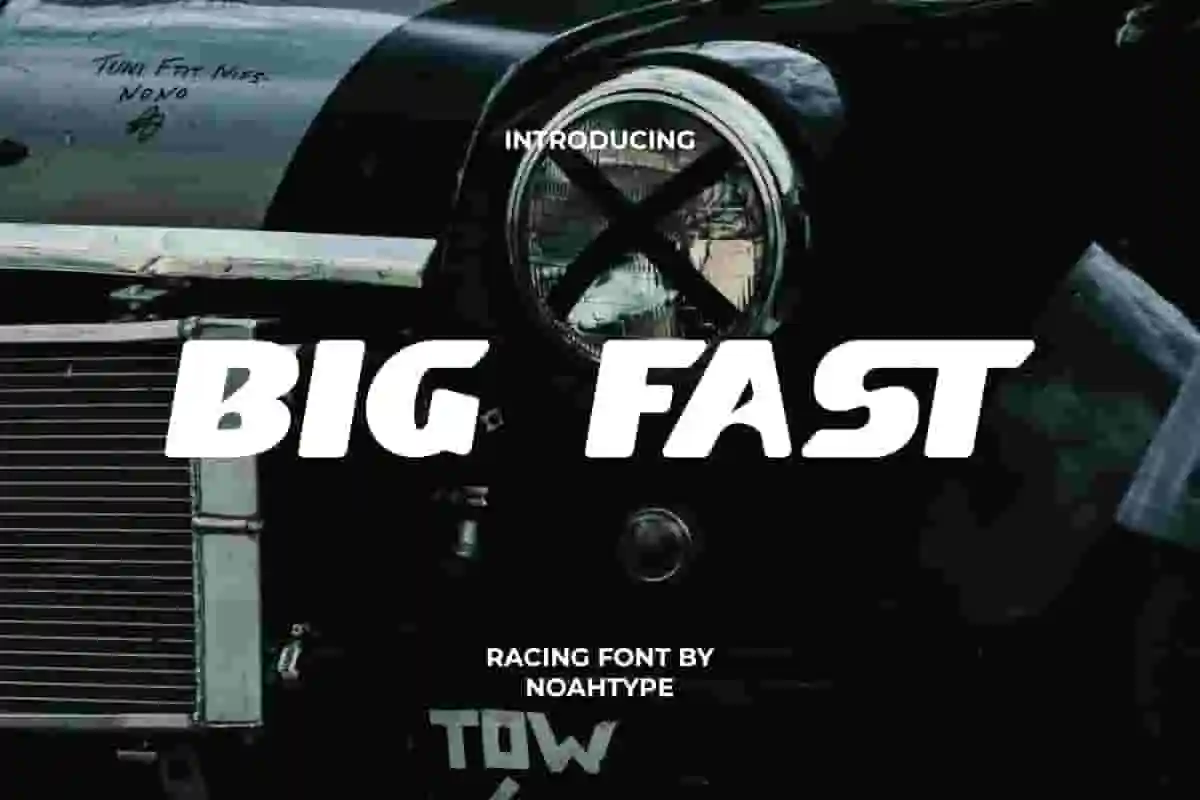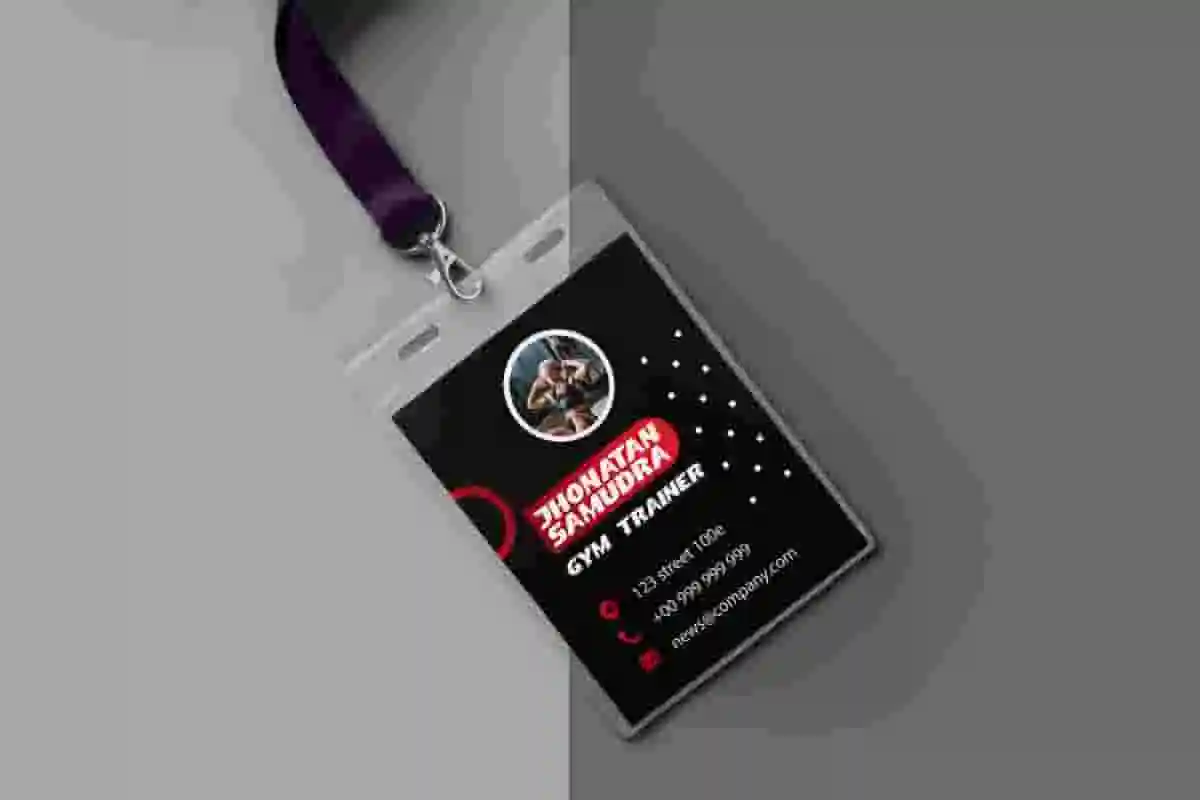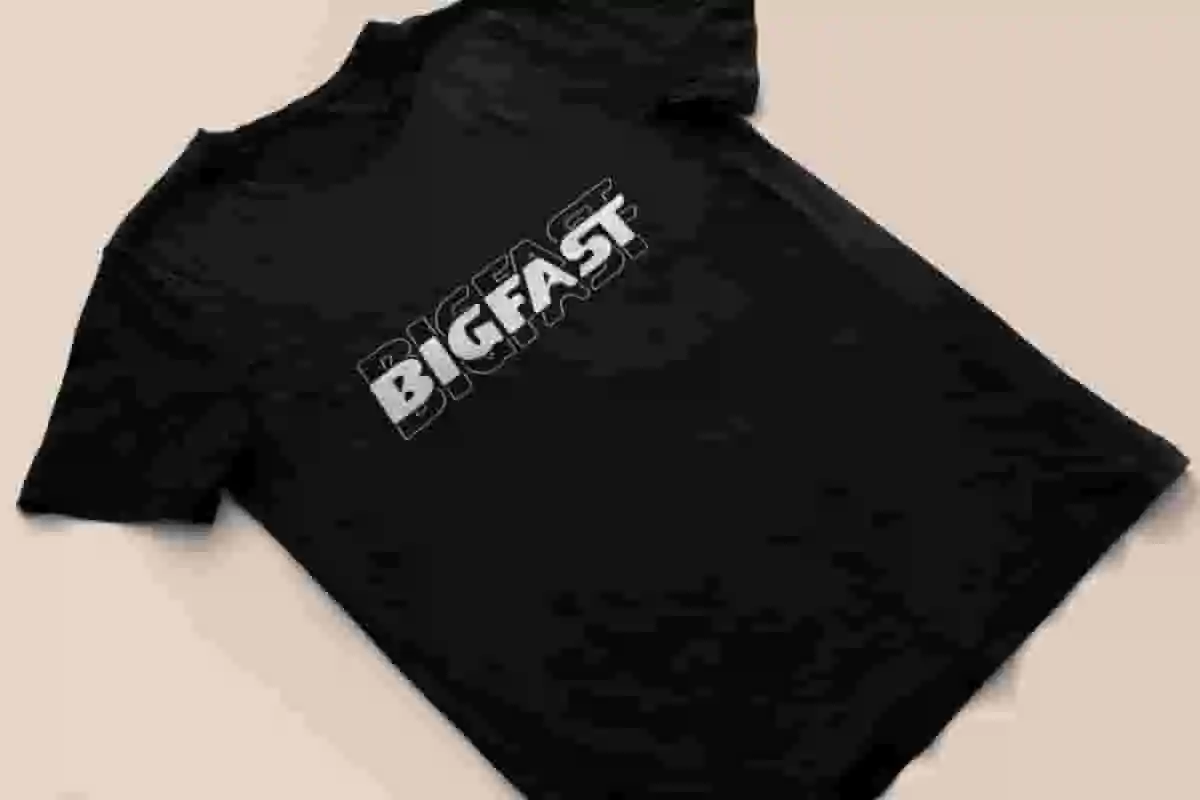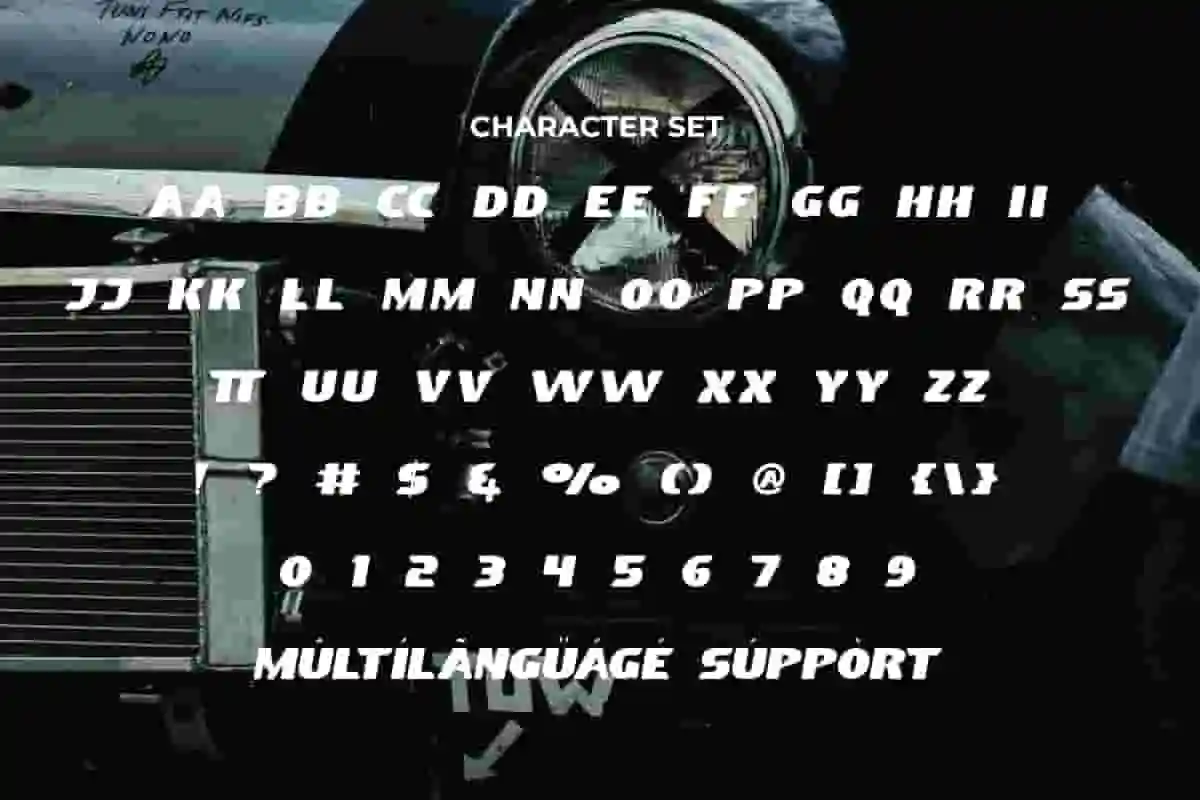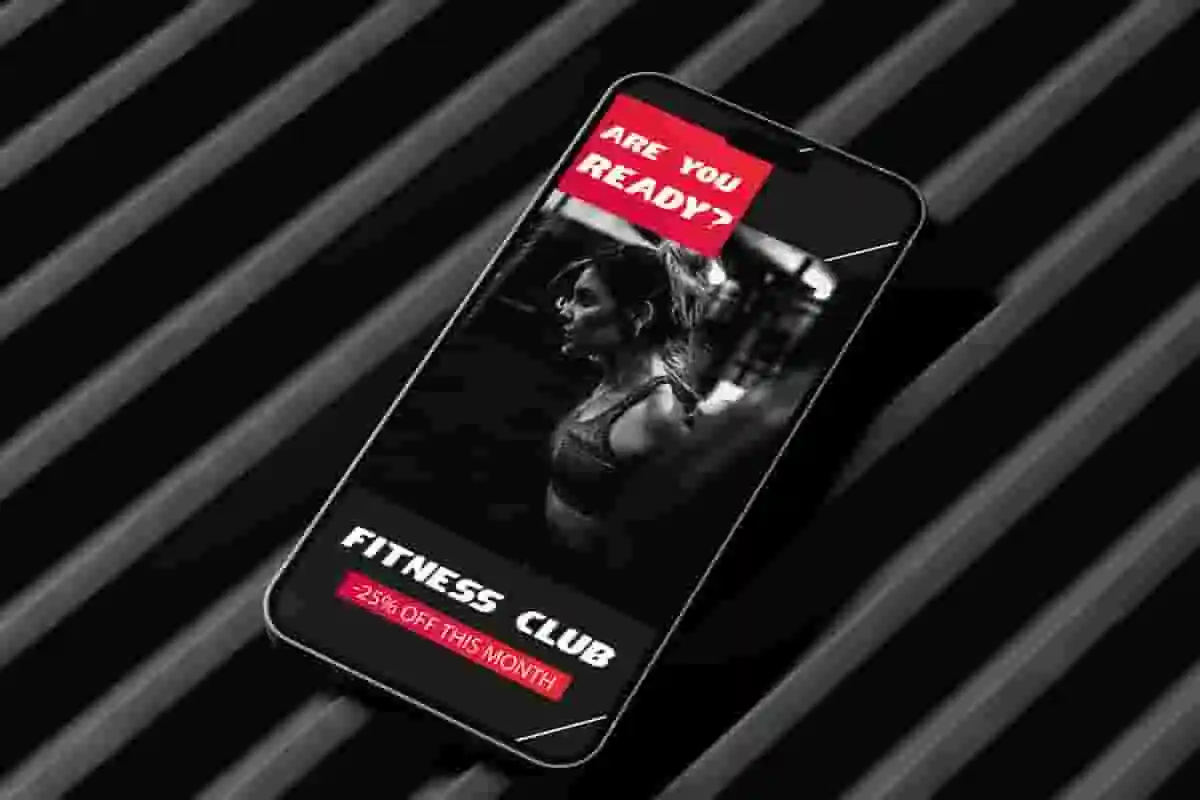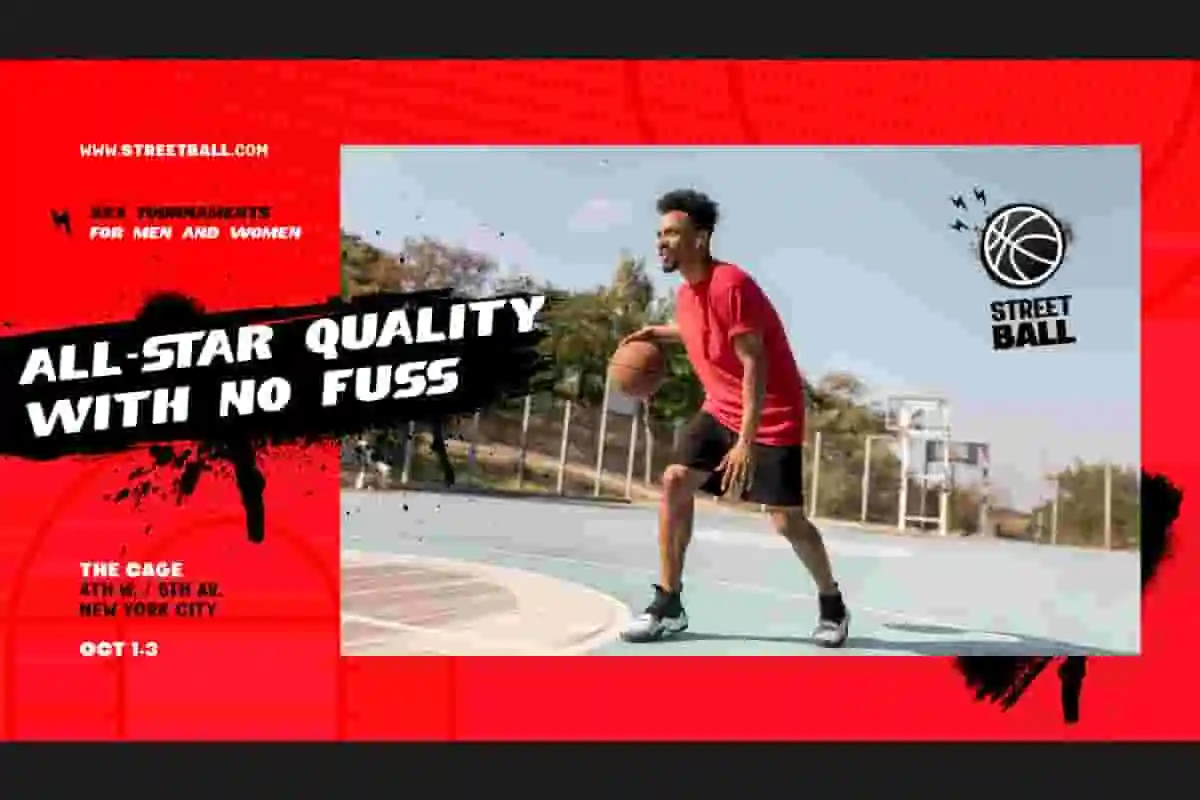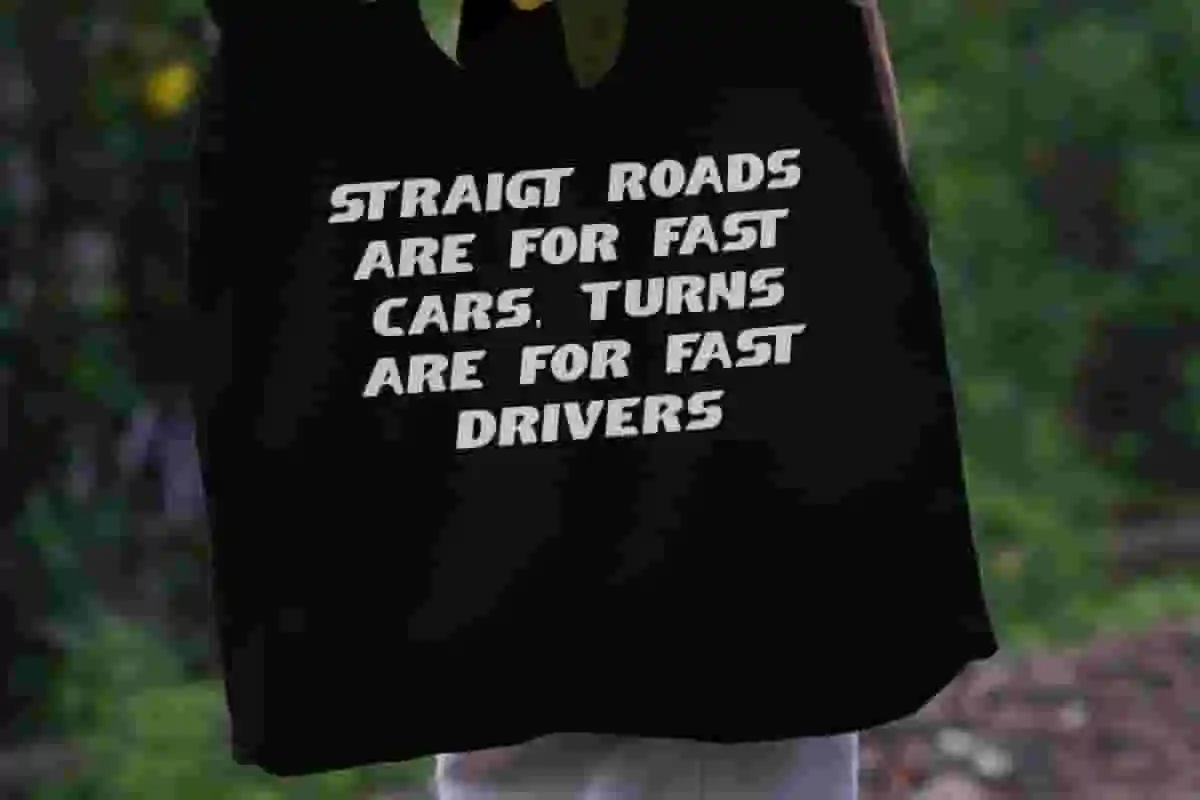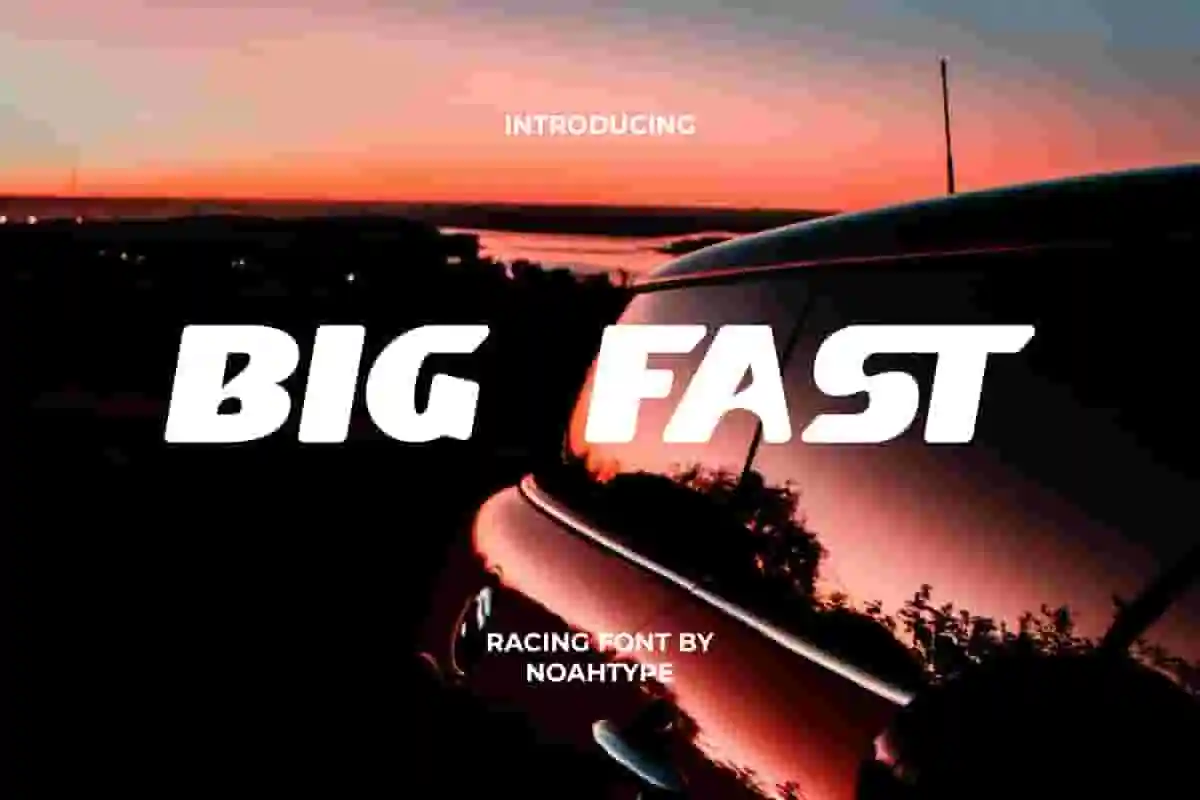
Big Fast Font is a fun, strong yet stylish racing sporty display font from NoahType. This font has a basic style so it can be used in a variety of designs and paired with other font types. It will be perfect for any projects, such as stationery, custom design, signage, invitation, label, brand image, cover, menu, poster, printing, product packaging, quotes, website, and many more!
Big Fast Font includes full set of ALL CAPS for Uppercase and Lowercase Basic Characters, Numerals, Punctuation, and Symbol. This modern font will make your design standout and also a perfect choice for many industries, such as fashion, automotive, sports, game, racing, movie, accessories, advertising, art, café, event or festival, printing, publishing, etc.